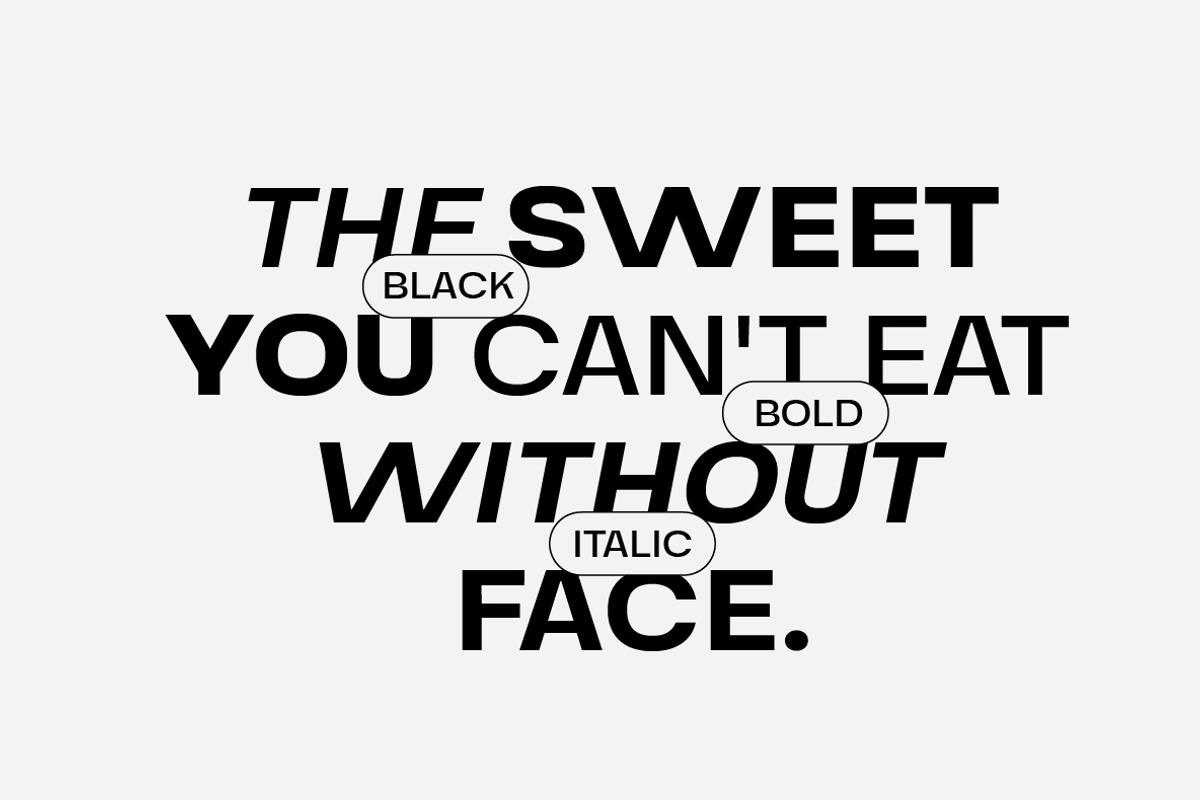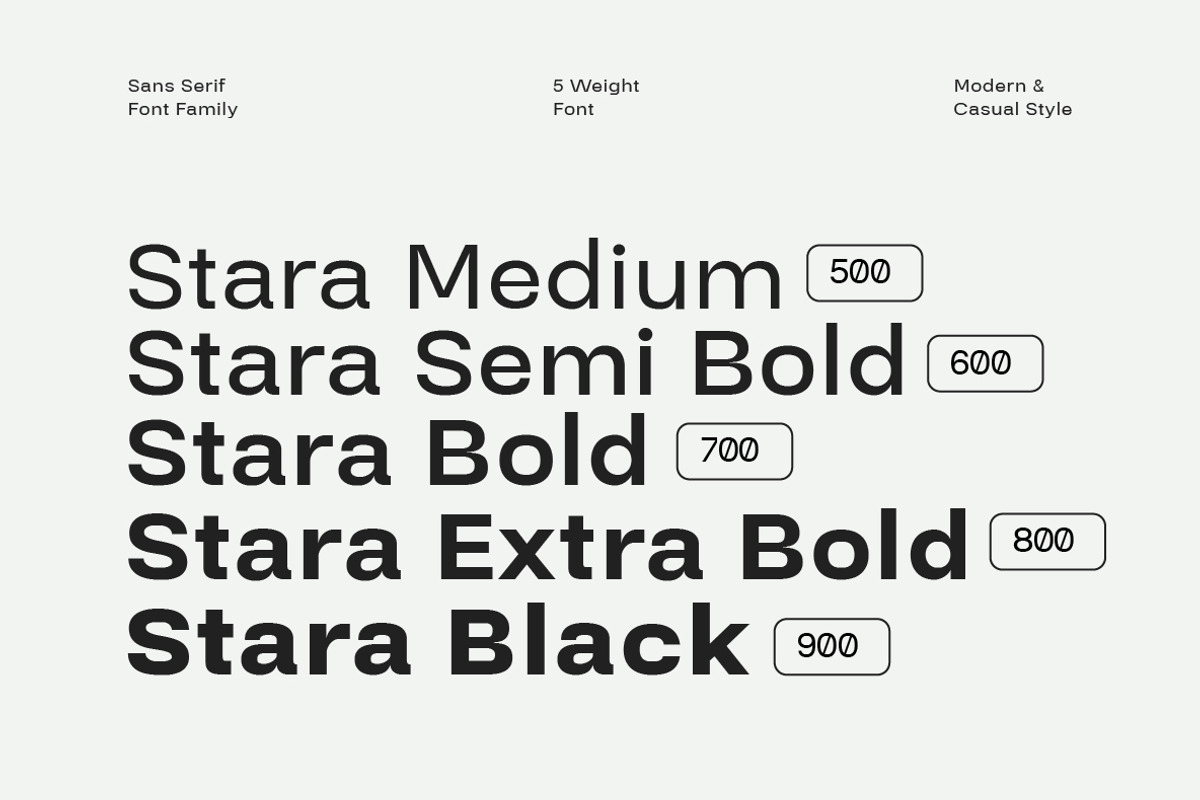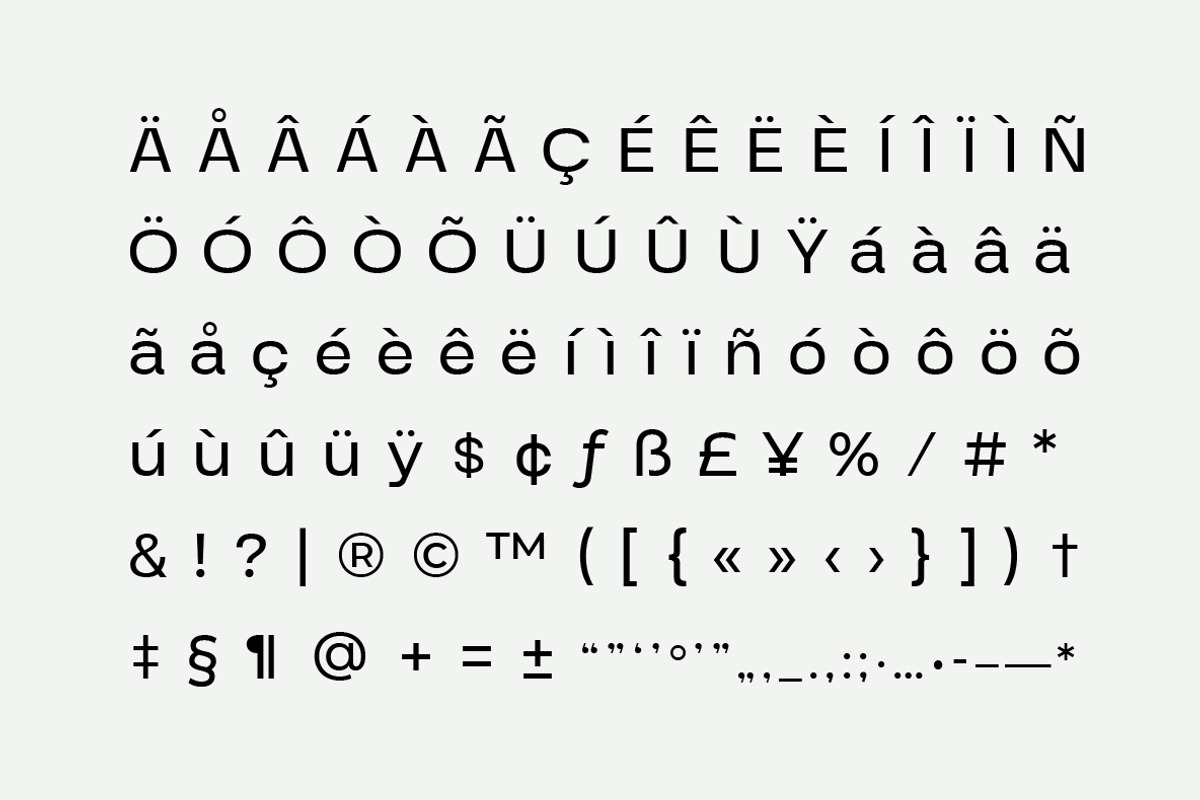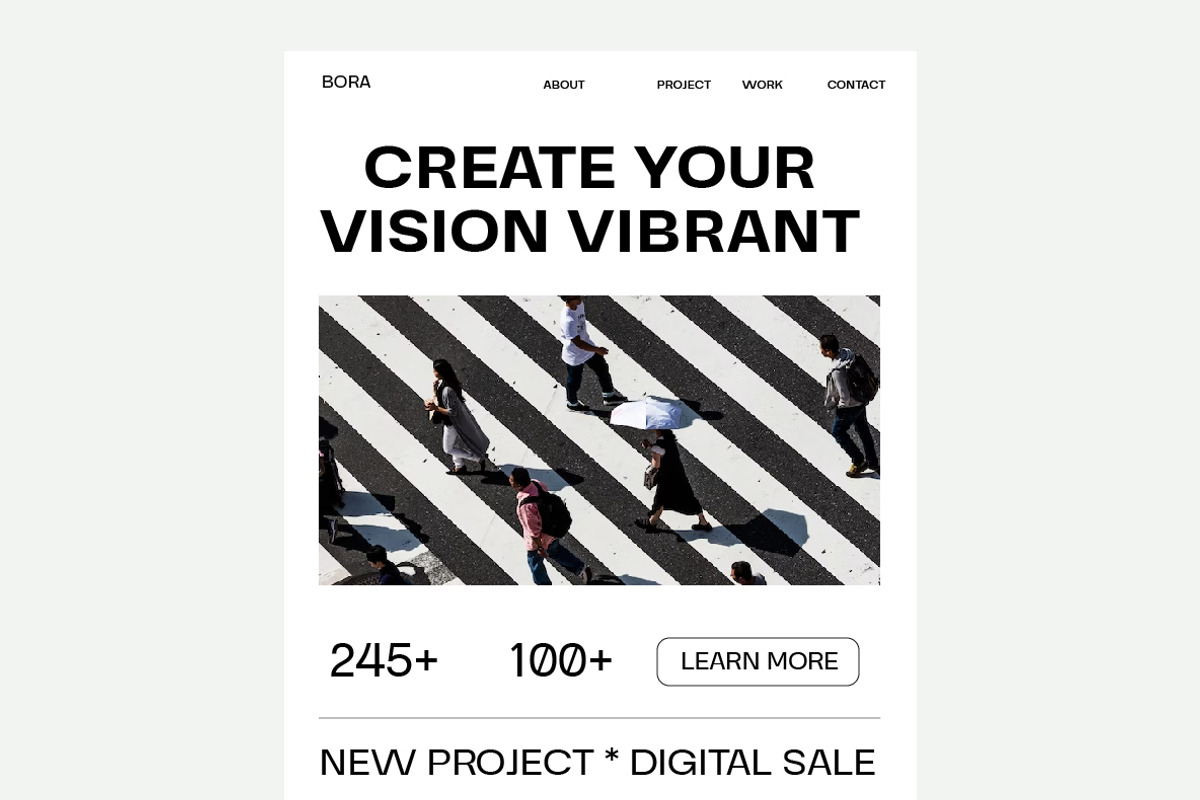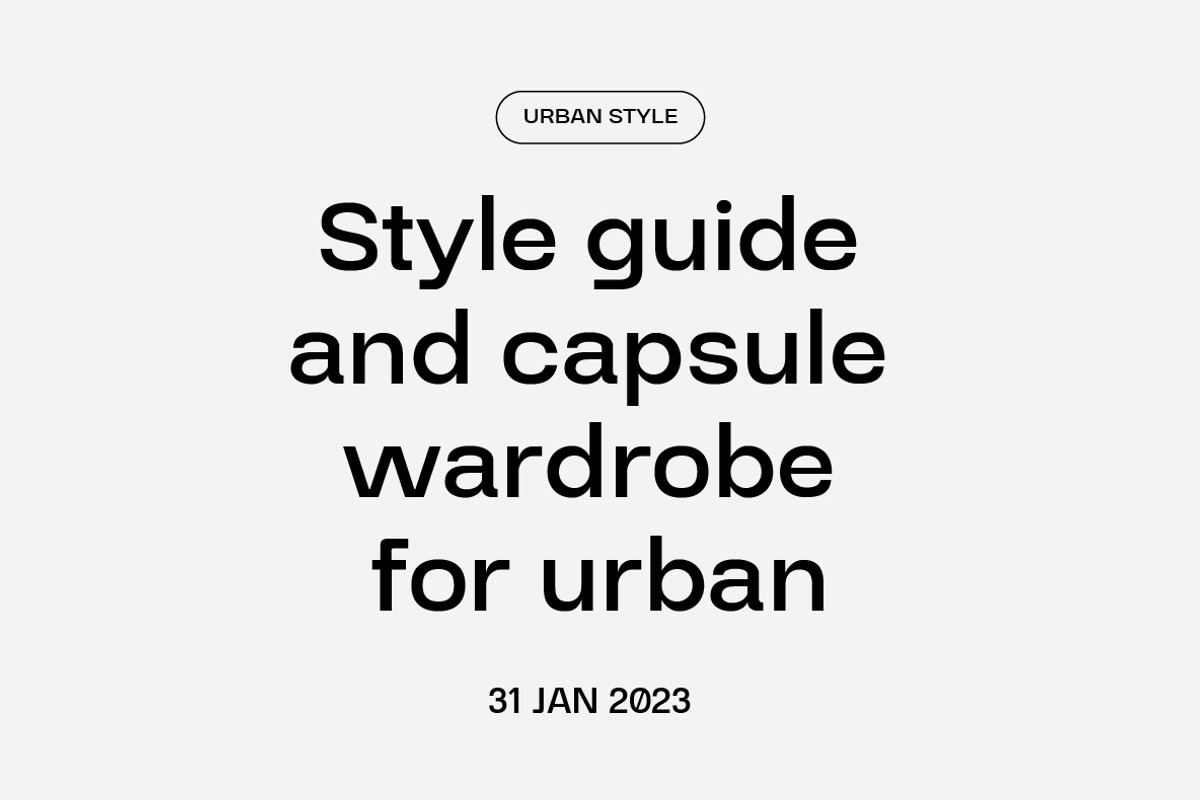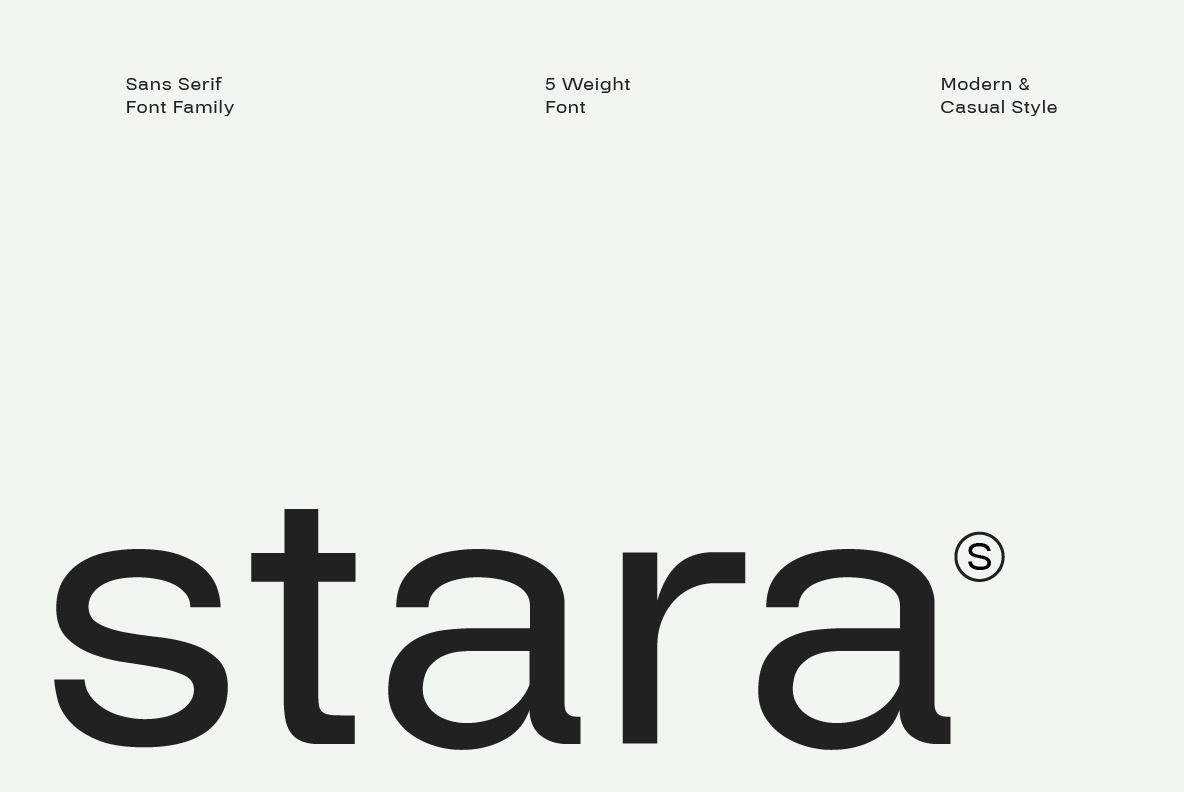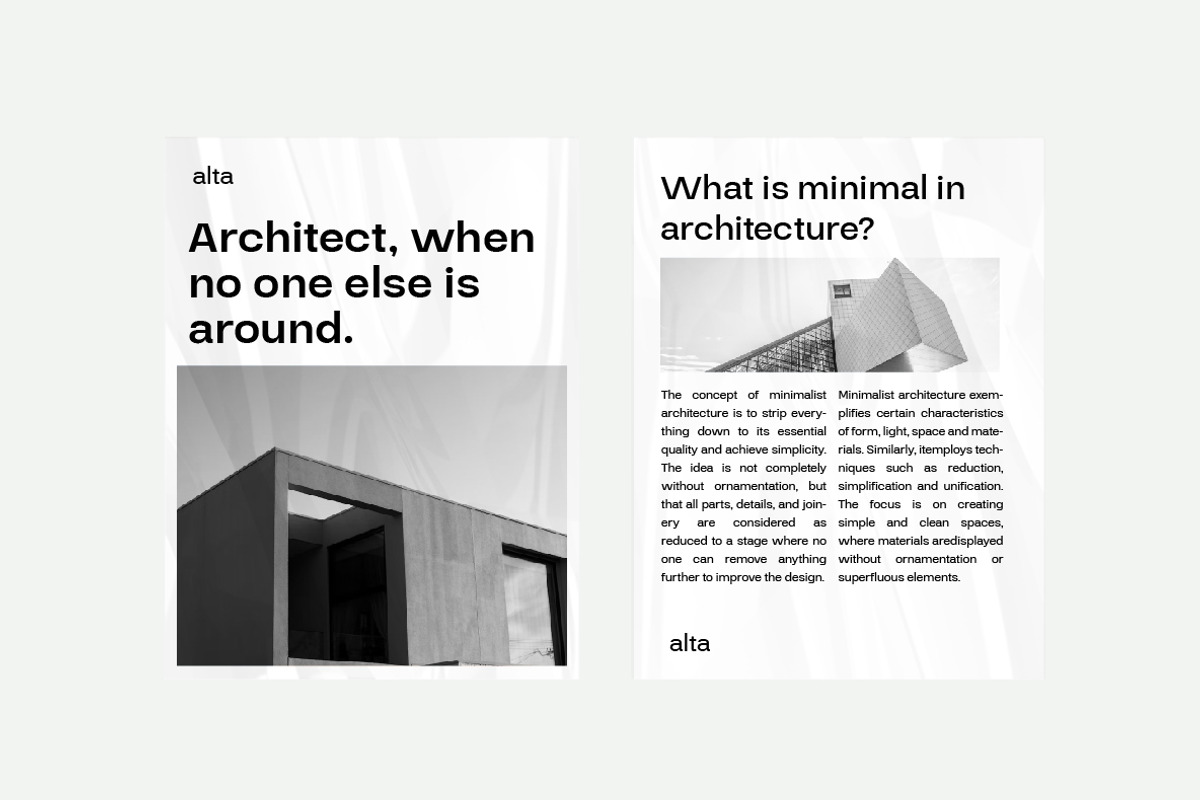
Stara Sans Serif Font
Stara Sans Serif Font is a sans serif font family that combines simplicity with elegance. With its clean design and balanced proportions, this font gives off a modern and professional feel. Each letter is carefully designed to ensure optimal clarity and legibility.
The Stara Sans Serif font is suitable for use in a variety of design projects, such as logos, titles, paragraphs, and digital displays, with its ability to give a fresh and elegant look.